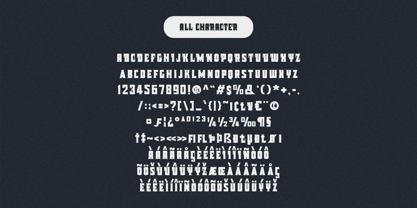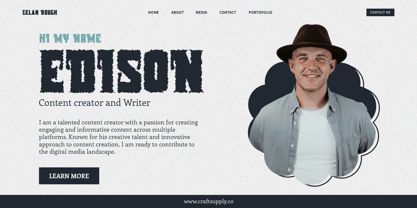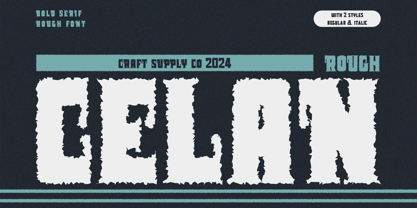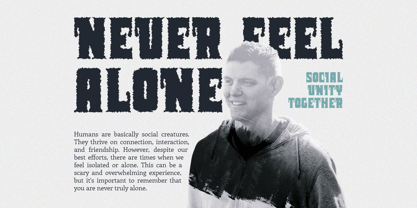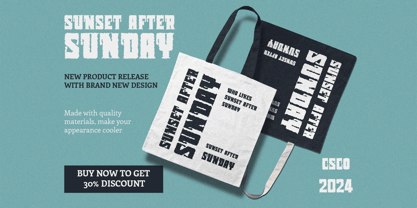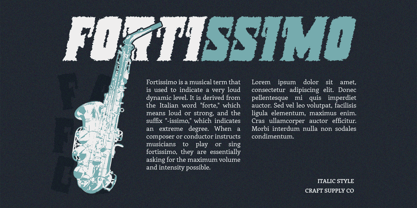
Celan Rough
by Craft Supply Co
The Celan Rough Font Family was designed by Trio Nazzar Saputra, Wahyu Hadi Yuana and published by Craft Supply Co. Celan Rough contains 2 styles and family package options. More about this family
Celan Rough: Bold and Rough Display Font
Robust Sans Serif Design
Celan Rough features a thick sans serif structure that commands attention. Its bold appearance ensures high visibility and impact in any display setting.
Rugged Texture and Rough Finish
The font’s rough effect adds character and authenticity to its design. Each letter exudes a rugged charm, making Celan Rough ideal for projects that demand a touch of rawness and grit.
Tailored for Display Needs
Designed specifically for display purposes, This font excels in capturing the viewer’s gaze. Whether used in posters, headlines, or advertisements, its bold and rough aesthetic ensures effective communication.
Versatile Application
Beyond its bold appearance, This font offers versatility in application. From branding to packaging and web design, it adds a distinctive edge to any project, making it memorable and impactful.
Bold and Authentic
This font emerges as a bold and authentic choice for display typography. With its robust sans serif design and rough texture, it stands out in various design contexts, ensuring that your message is delivered with boldness and character. Elevate your designs with This font and make a lasting impression.
Designers: Trio Nazzar Saputra, Wahyu Hadi Yuana
Foundry: Craft Supply Co